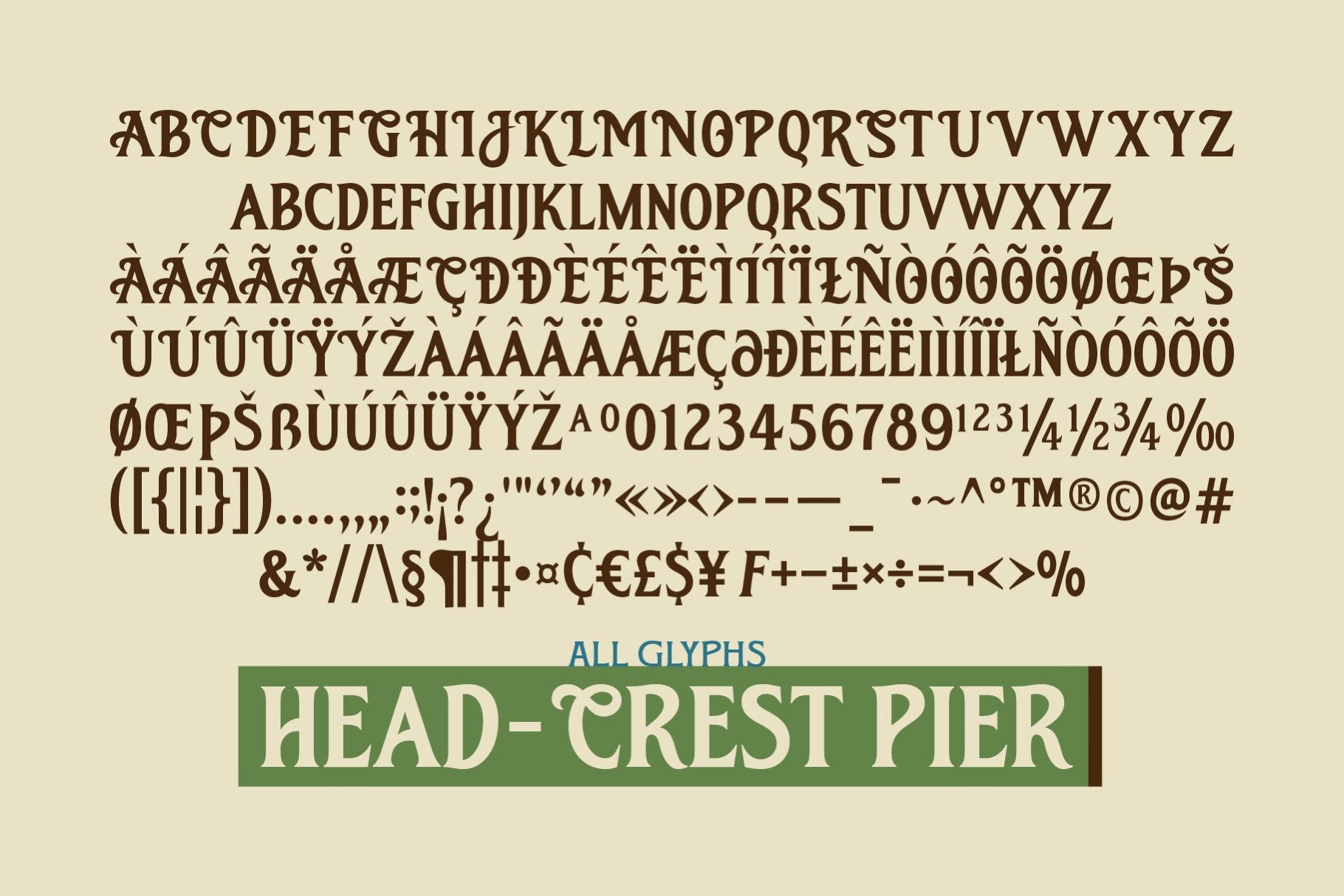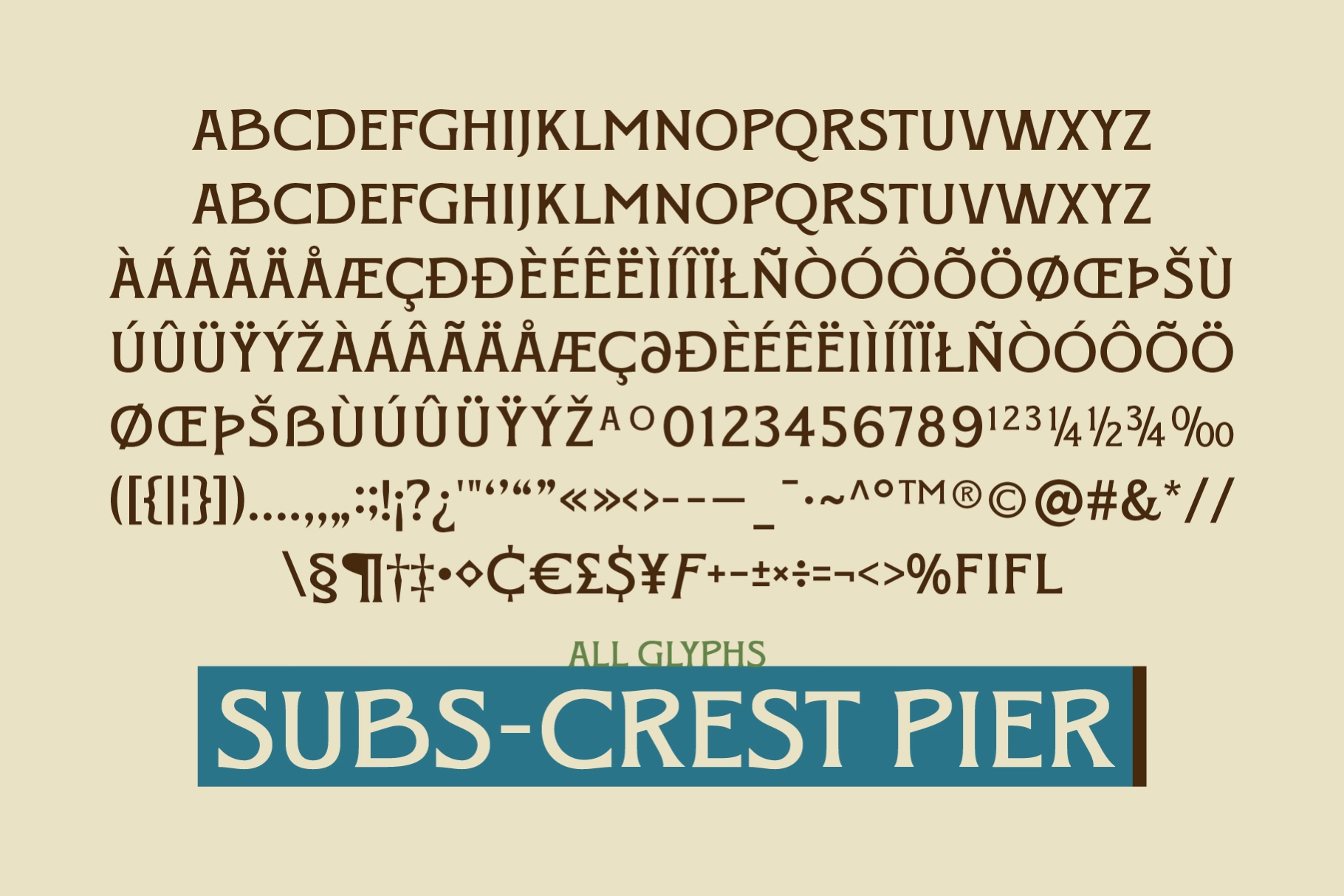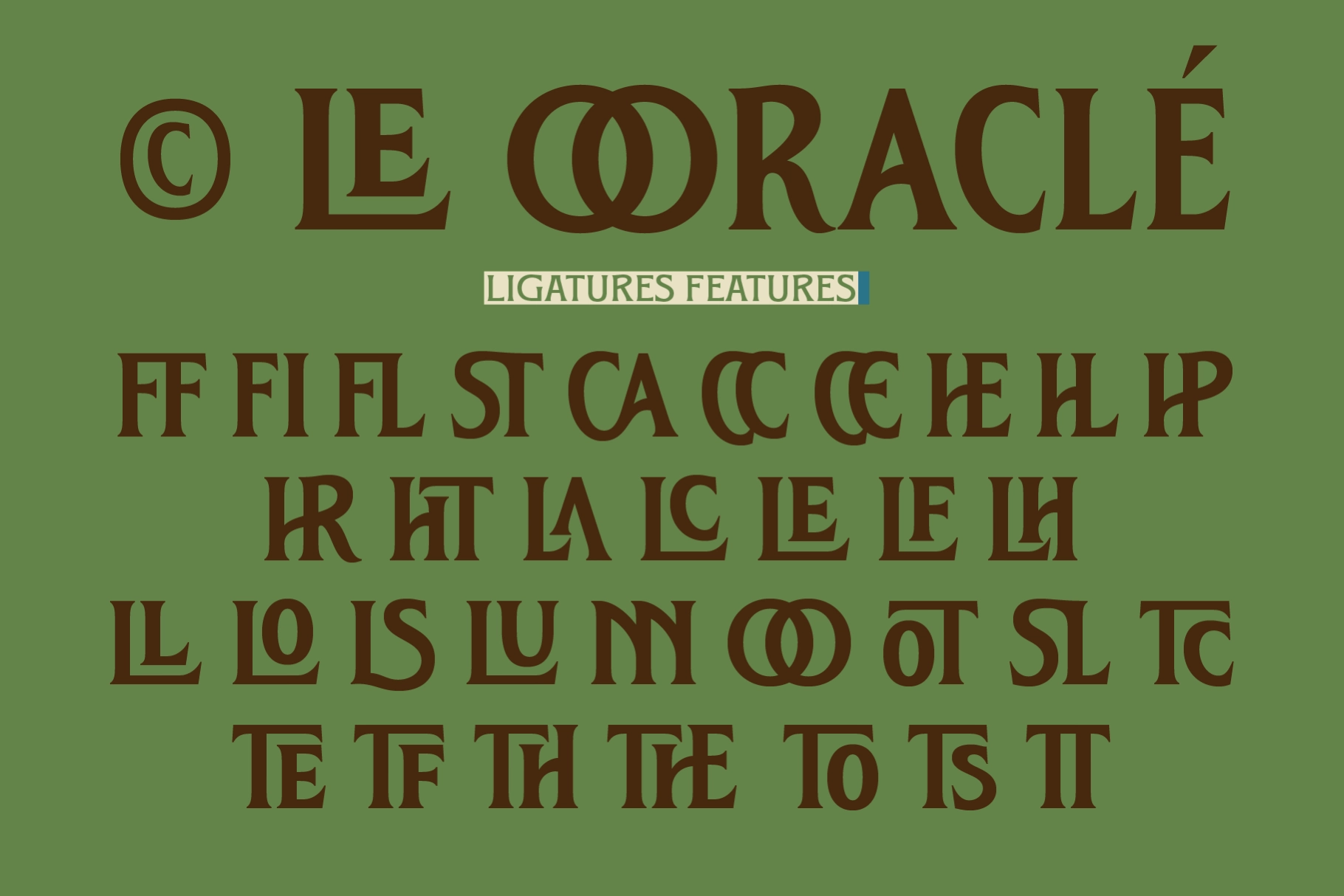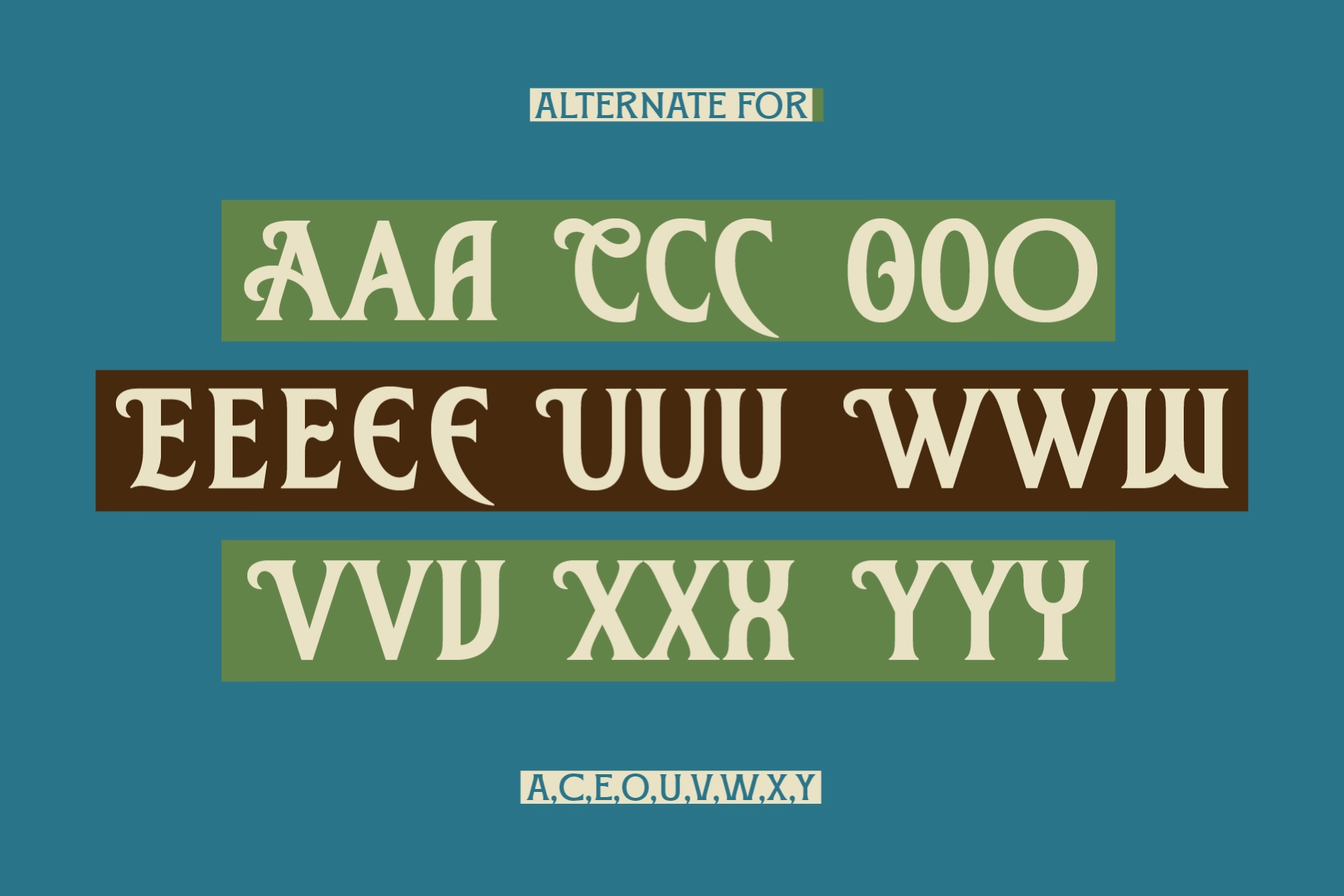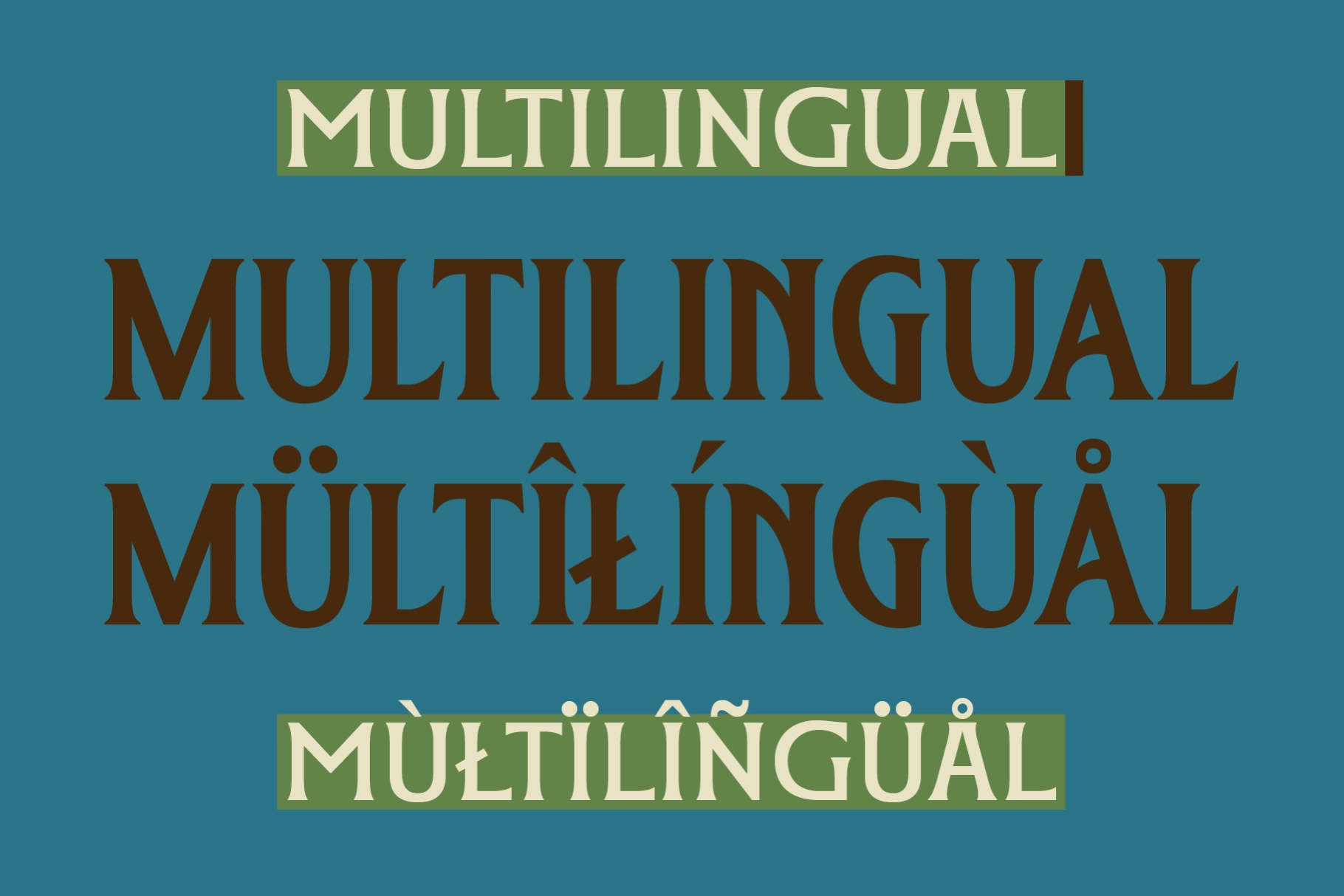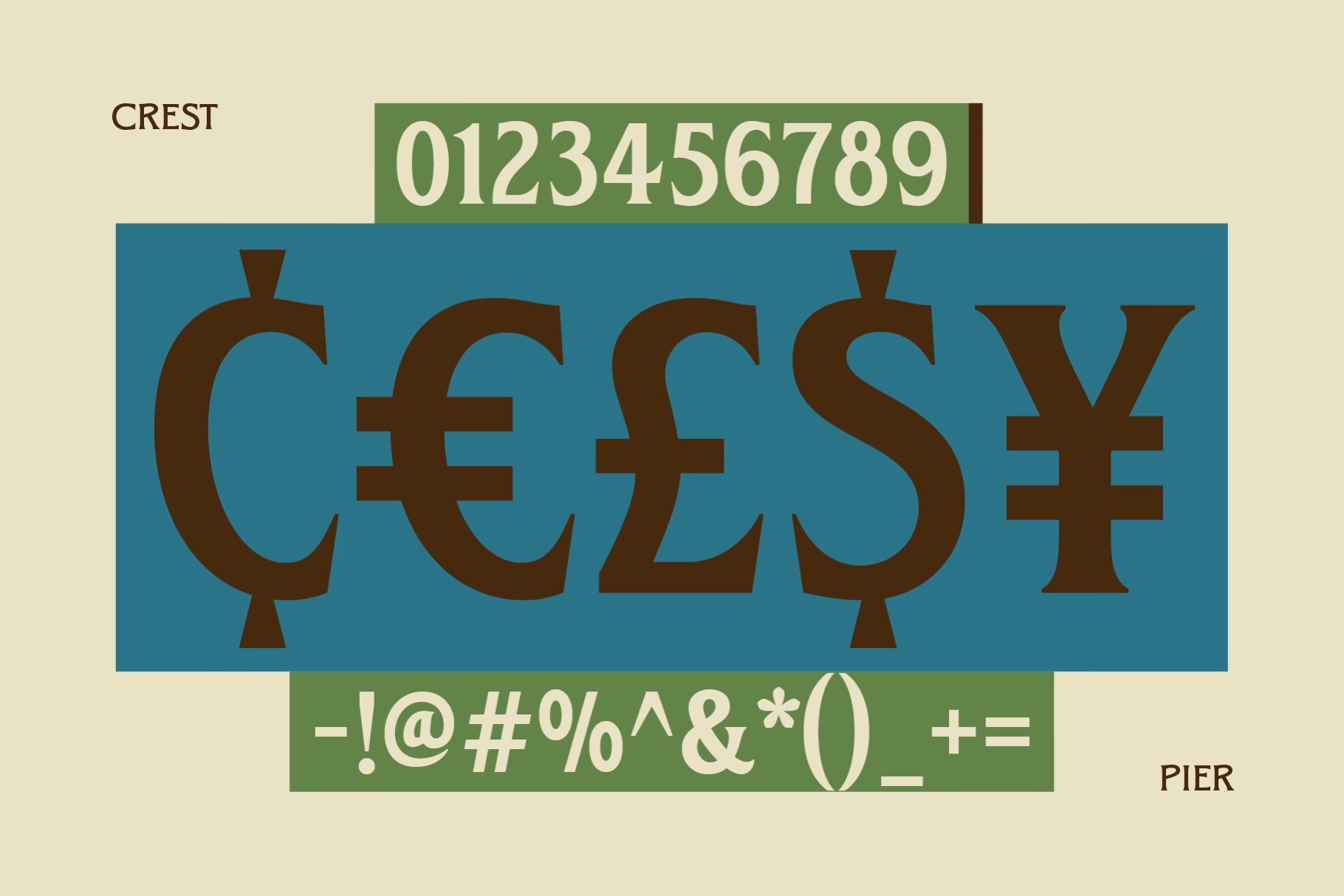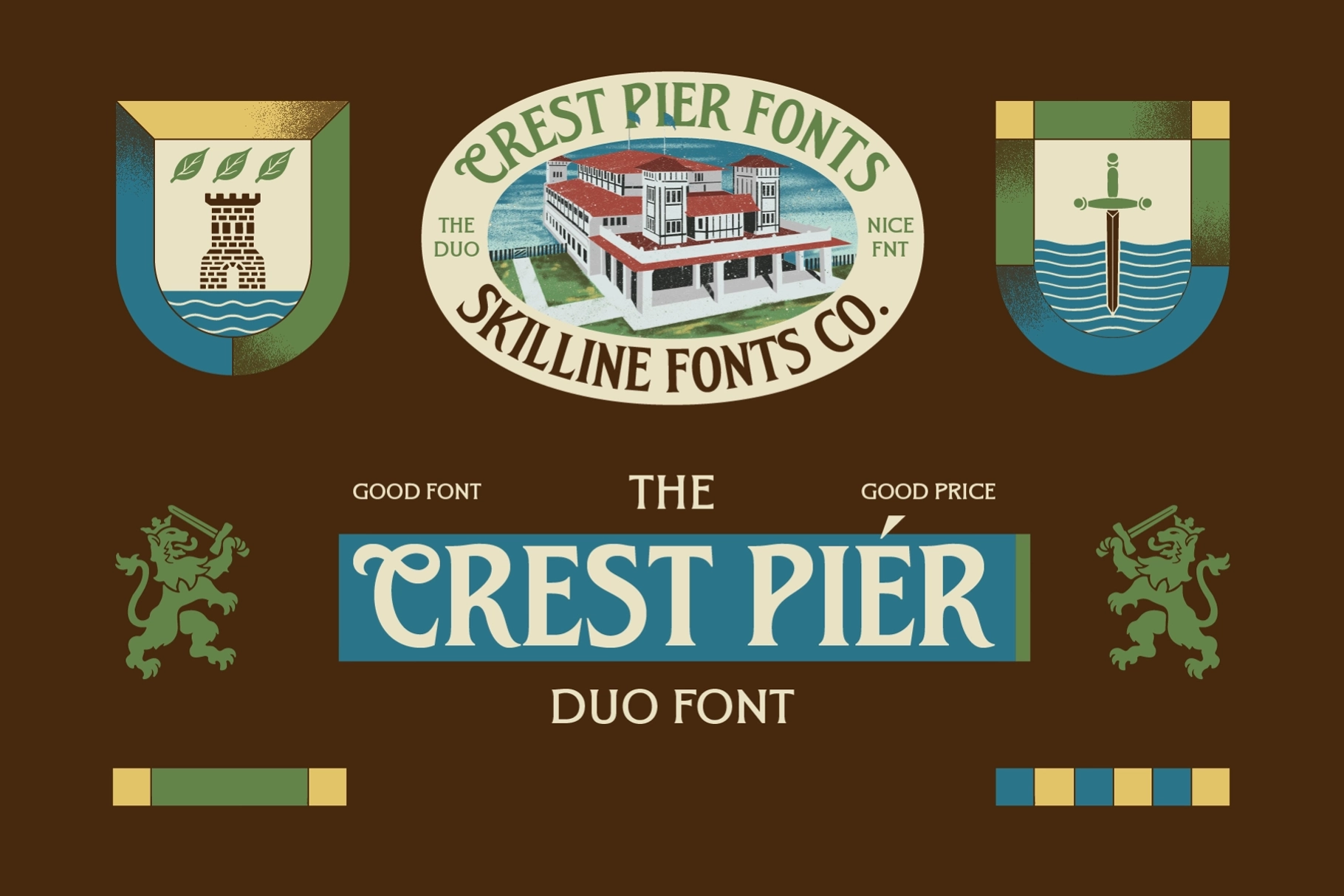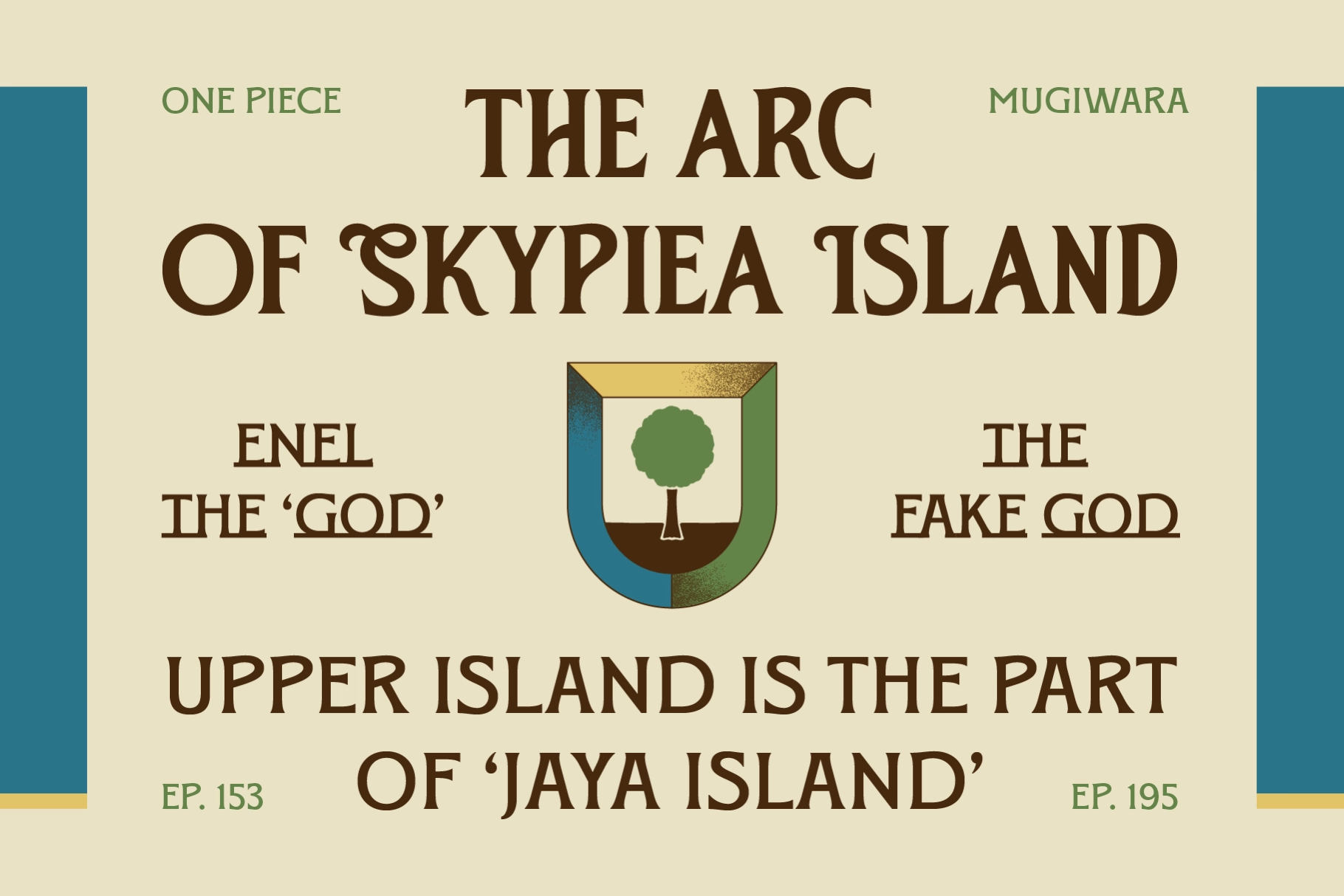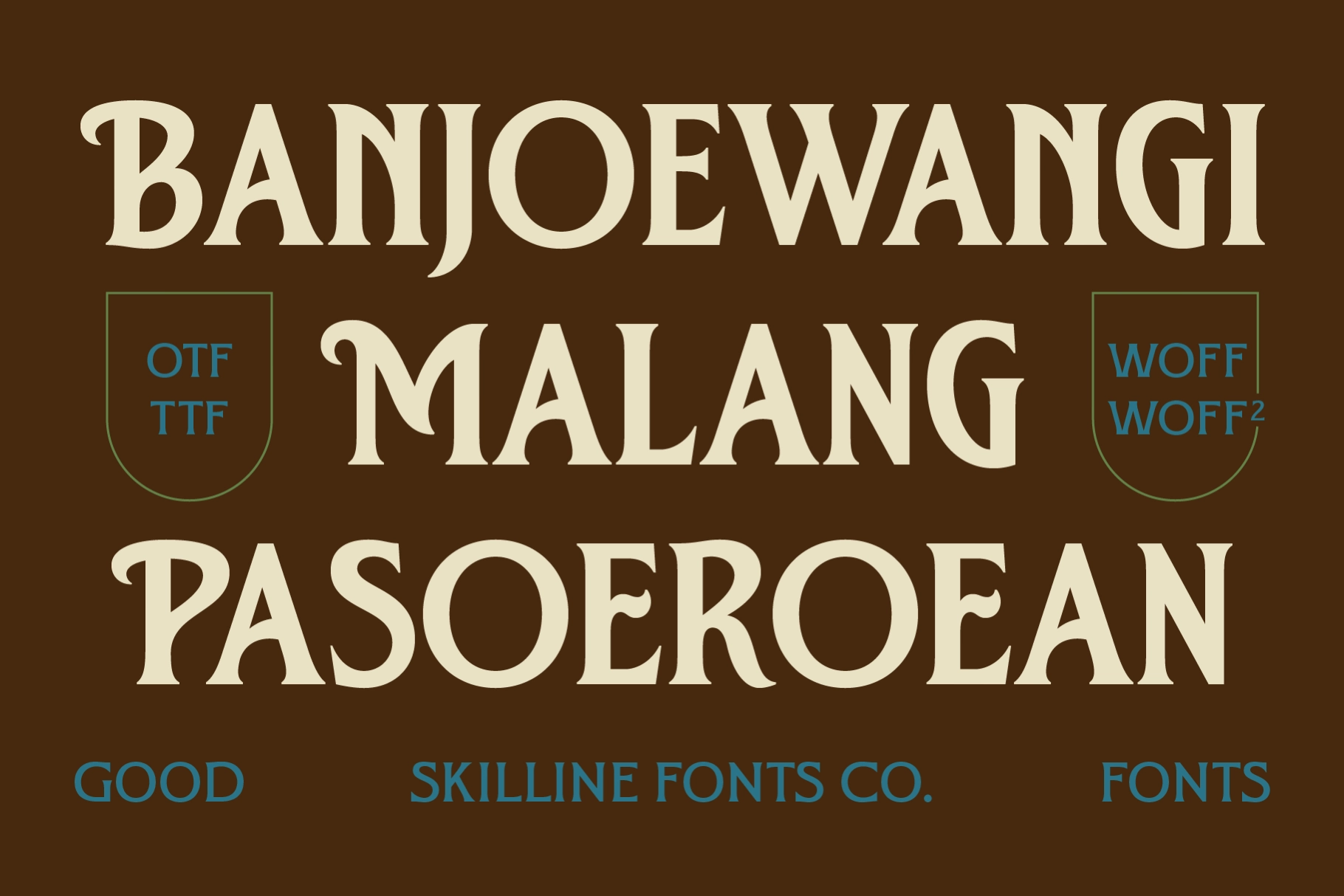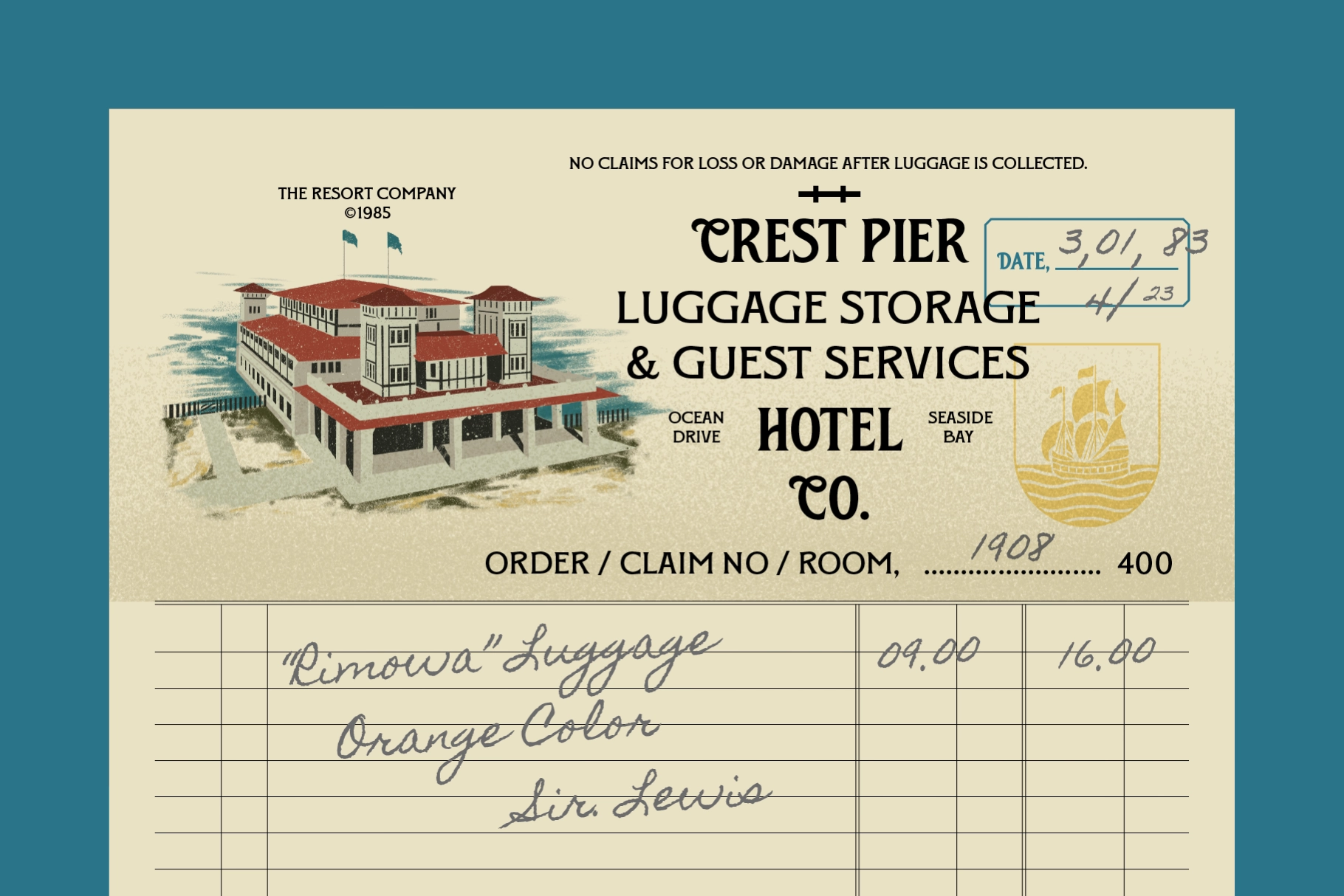
SFC Crest Pier - Vintage Serif Duo Font
SFC Crest Pier
SFC Crest Pier Vintage Serif Duo Font presents high-contrast serif letterforms with flared terminals and balanced proportions, shown across full glyph sheets, alternates, and refined headline compositions. The character set highlights classic signage layouts, currency symbols, and ligature pairs, along with badge-style graphics that echo maritime crests, hotel marks, and heritage branding systems.
- Uppercase & lowercase
- Ligatures
- Stylistic alternates
- Icon set (ship, lighthouse, sword, tree, waves, etc.)